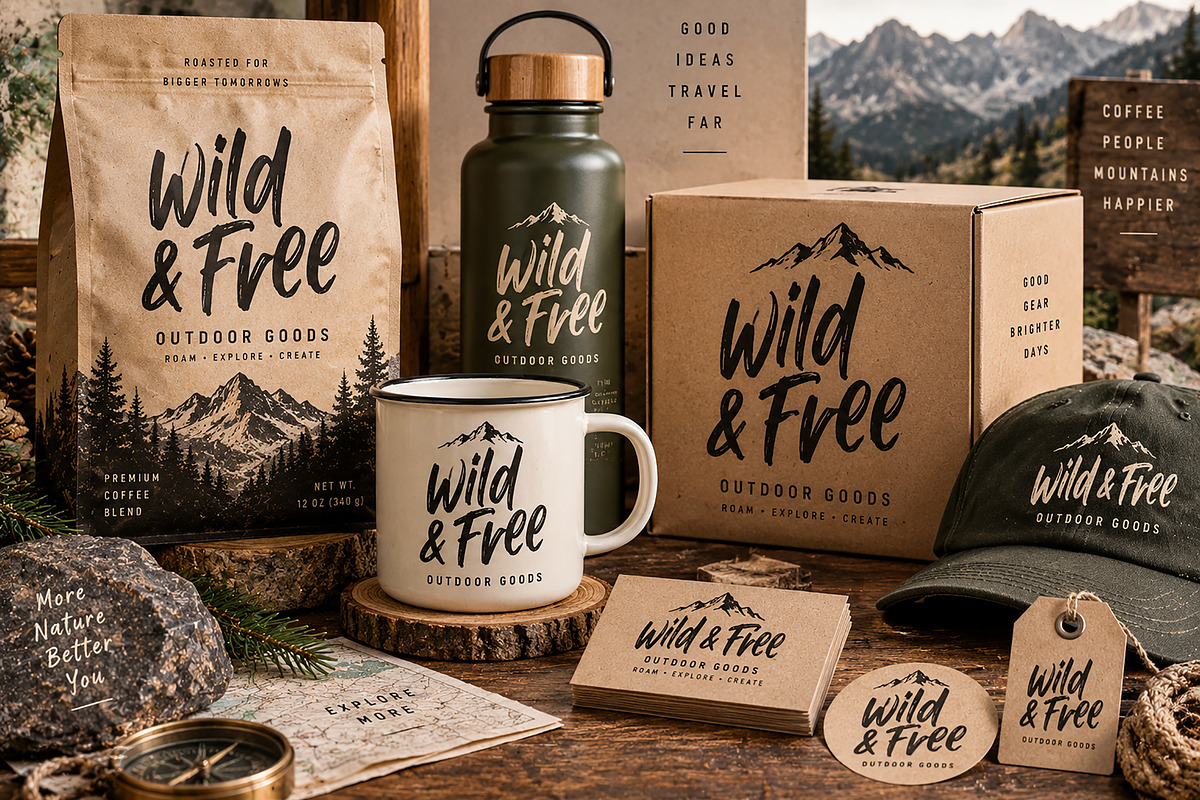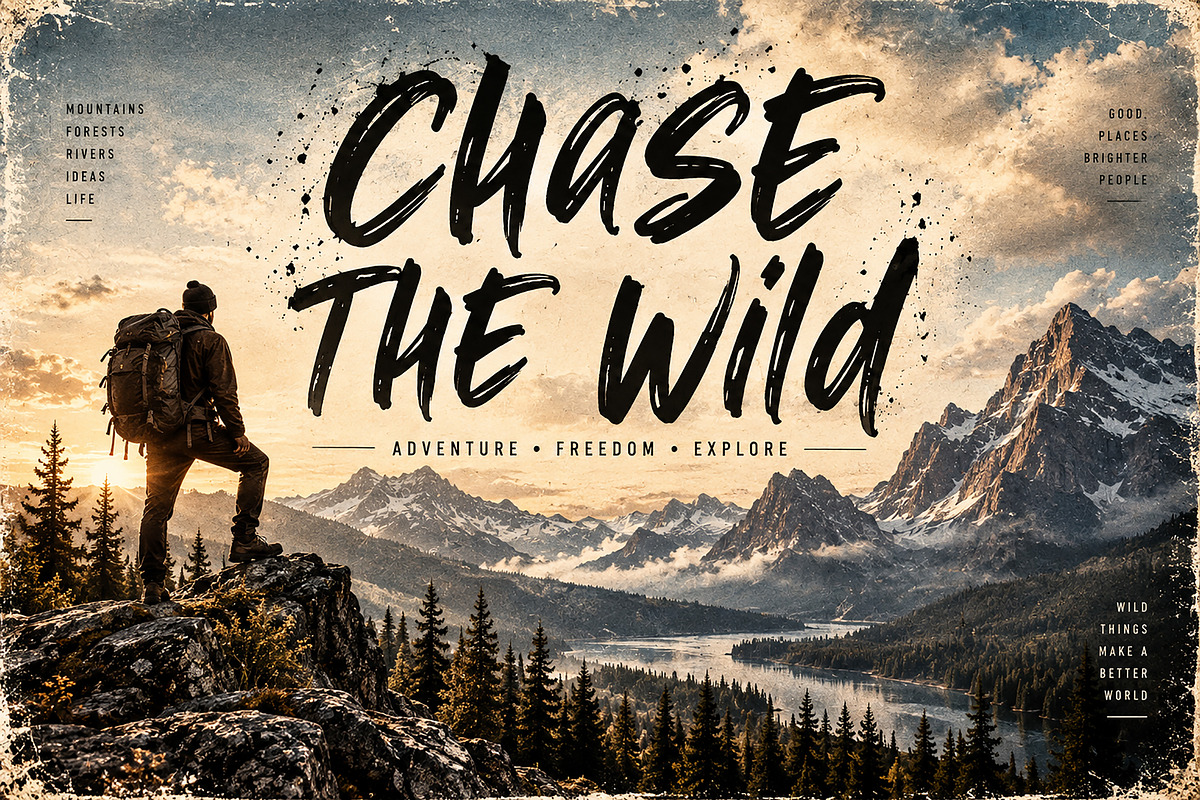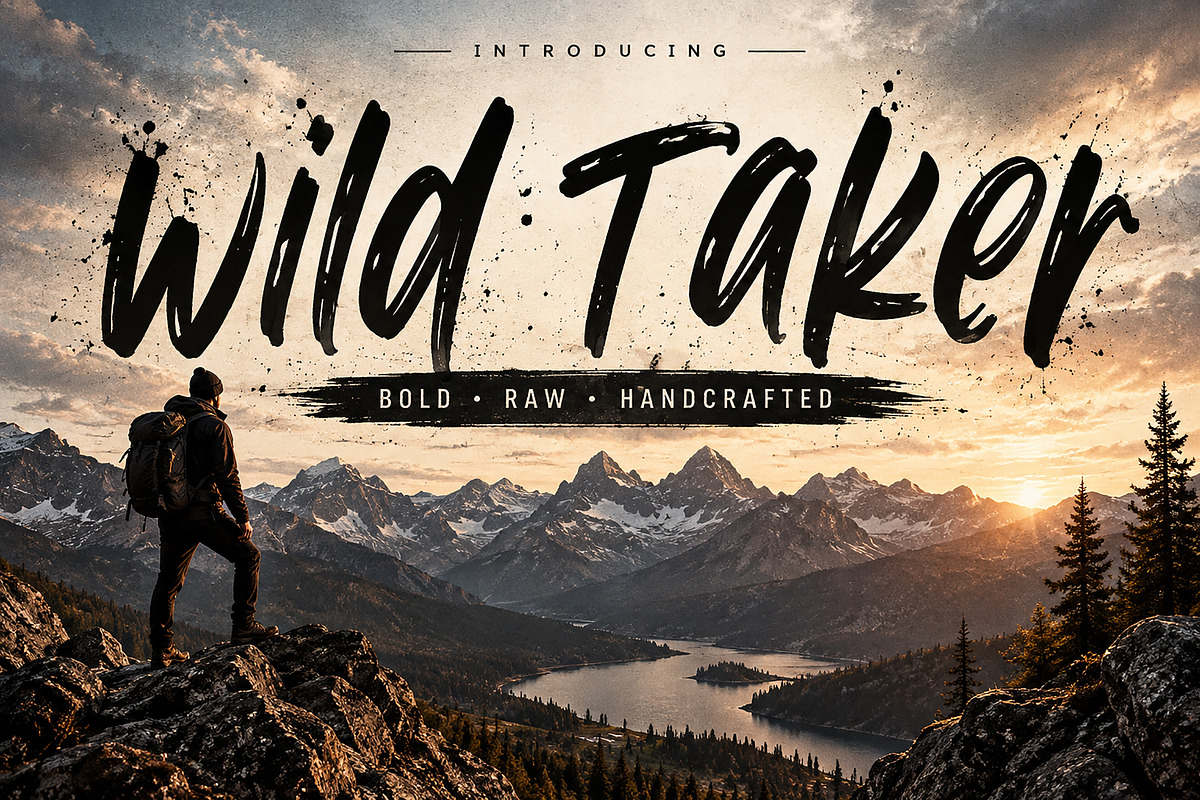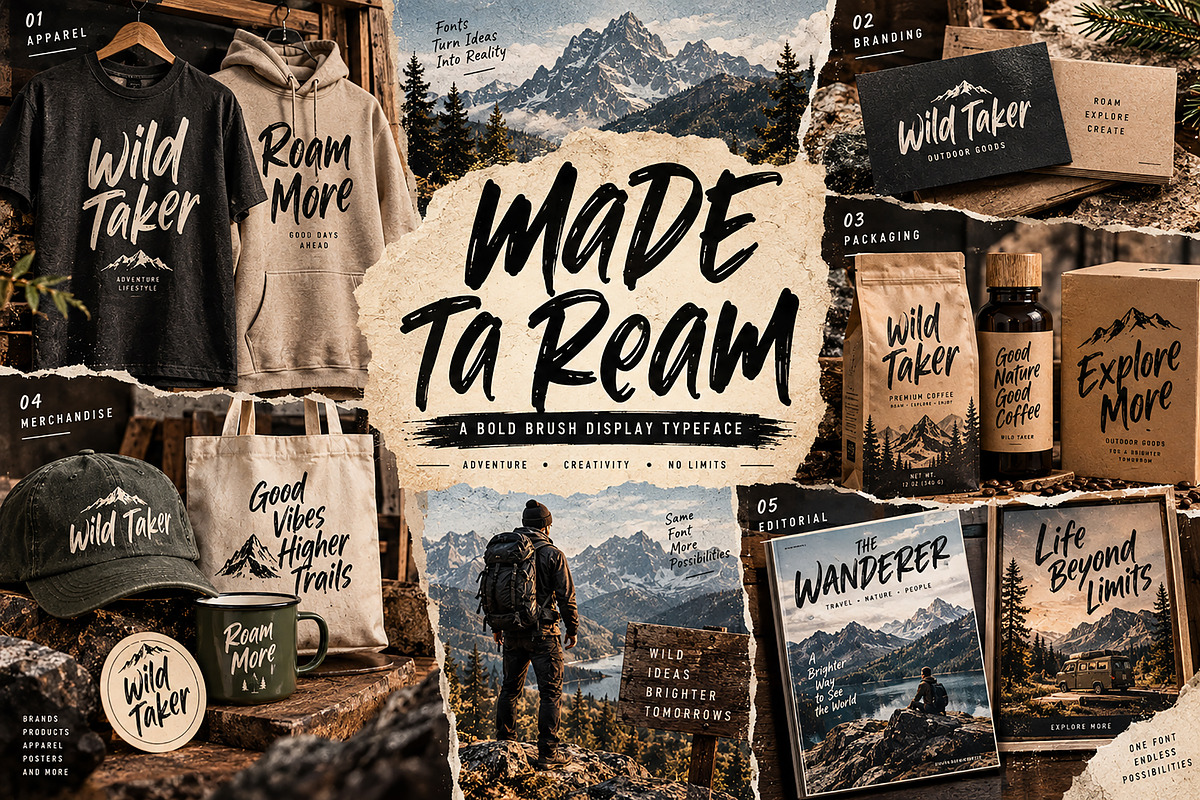
Wild Taker — Bold Brush Script Font
Description
Wild Taker is a bold and expressive brush script font designed to bring a raw, energetic, and handcrafted feel to your creative projects. With its dynamic brush strokes, organic letterforms, and authentic hand-painted character, Wild Taker is perfect for designs that need a strong adventurous personality.
Use Wild Taker for outdoor branding, adventure posters, streetwear, apparel, logos, product packaging, merchandise, labels, social media graphics, magazine covers, travel designs, and more.
Its bold brush style works especially well for projects that need a rugged, creative, youthful, and handcrafted aesthetic.
Outdoor & Adventure Branding
Logo & Brand Identity
Streetwear & Apparel
T-Shirt & Hoodie Designs
Travel Posters
Adventure Graphics
Coffee Branding
Labels & Stickers
Posters & Flyers
Magazine & Editorial Design
Promotional Artwork
Creative Headlines
Font Details
Font Name: Wild Taker
Style: Bold Brush Script / Handcrafted Display